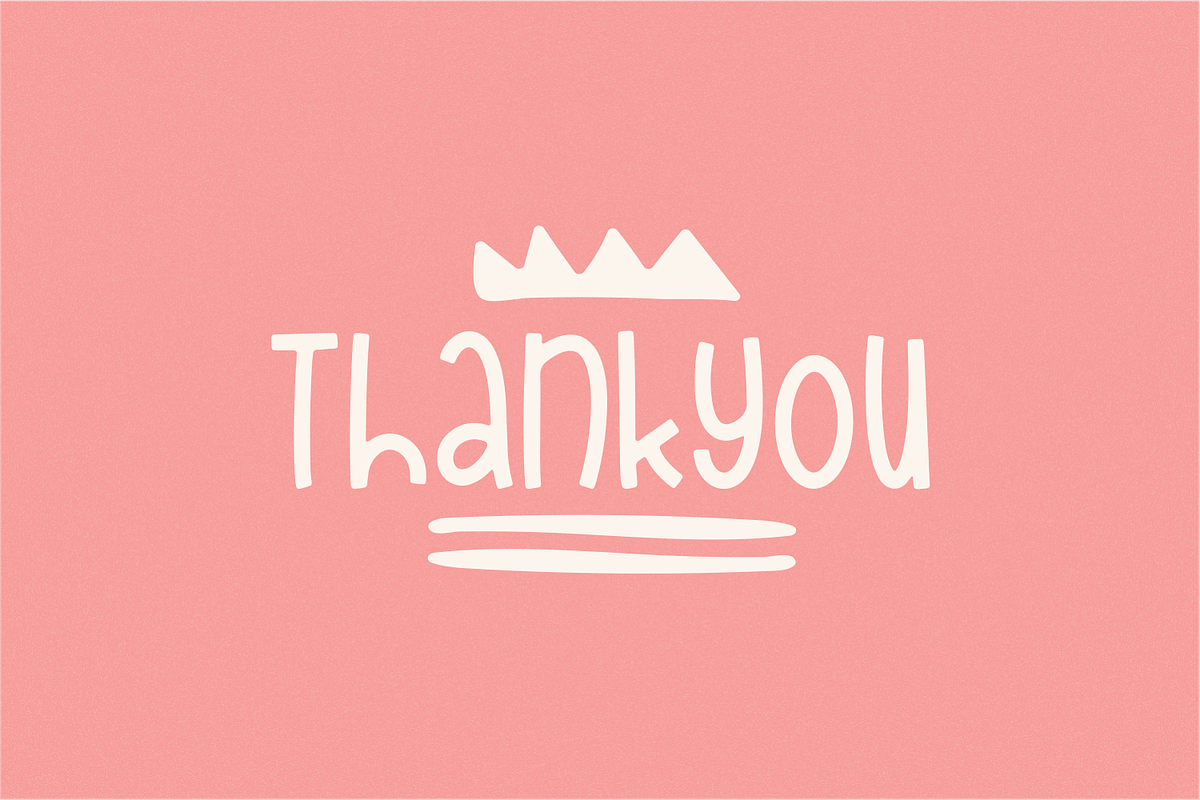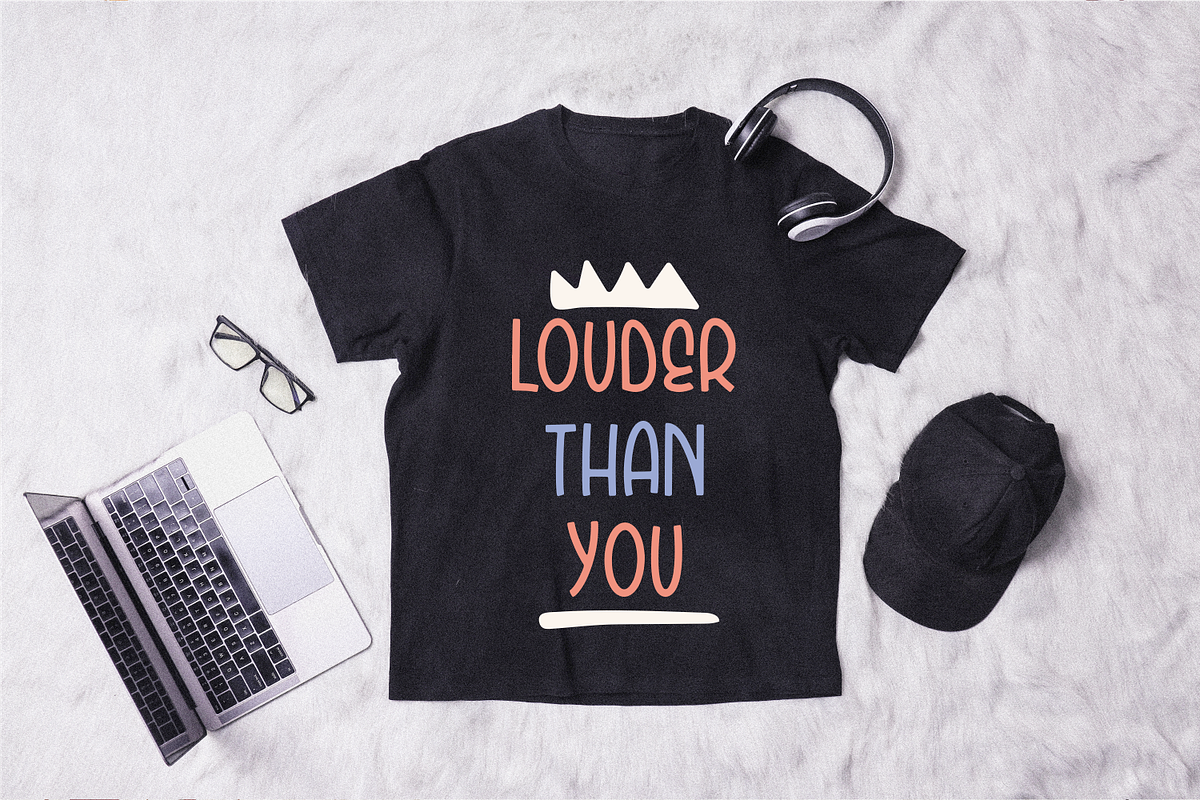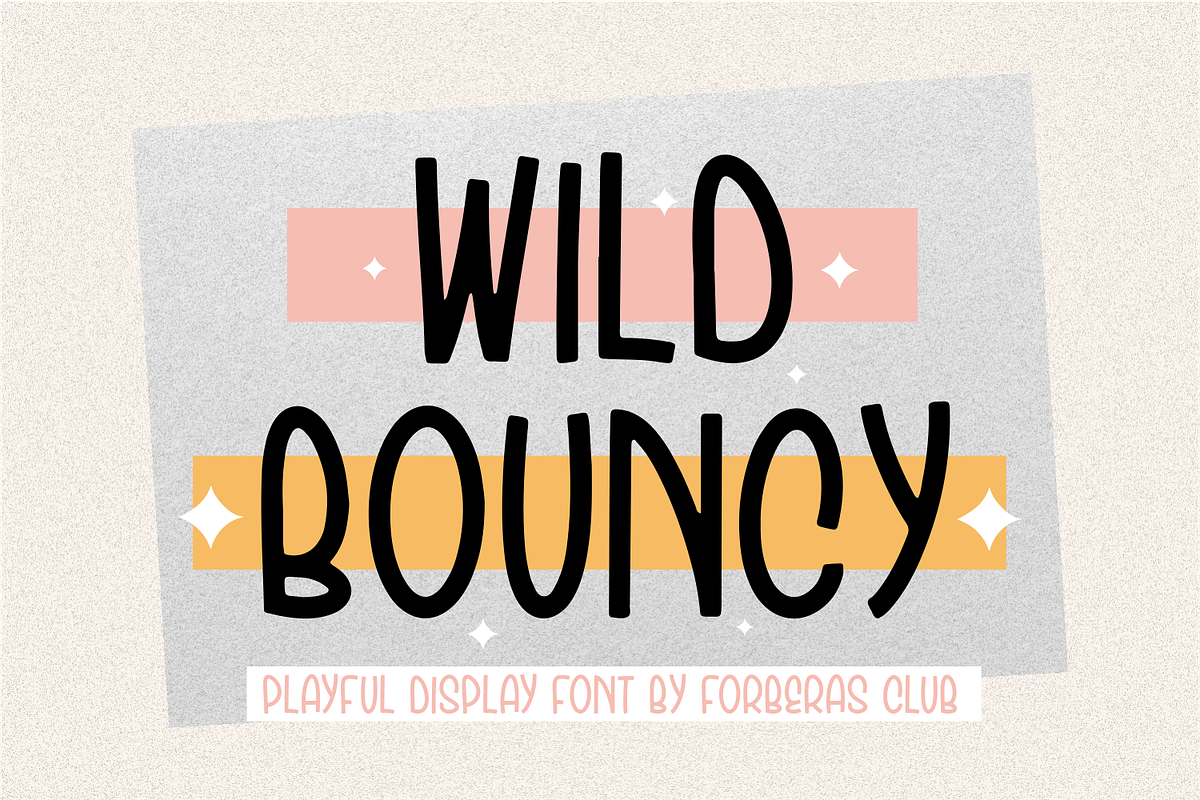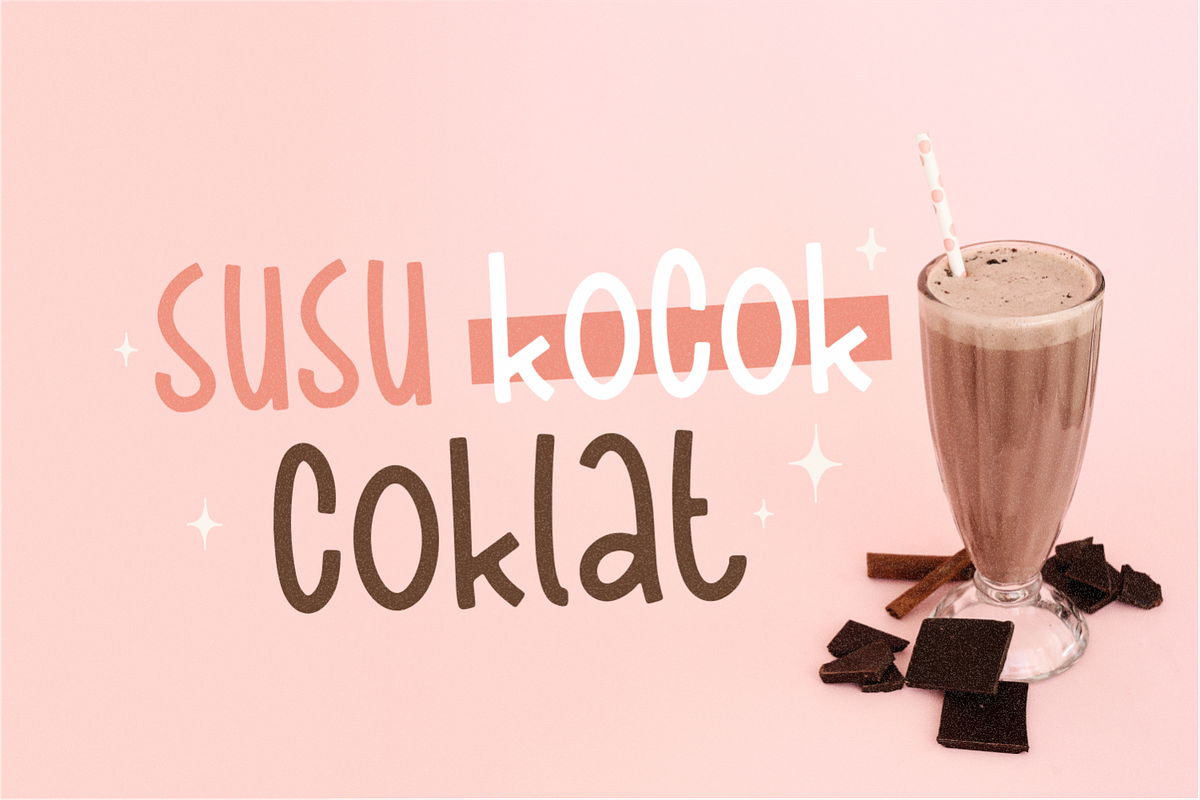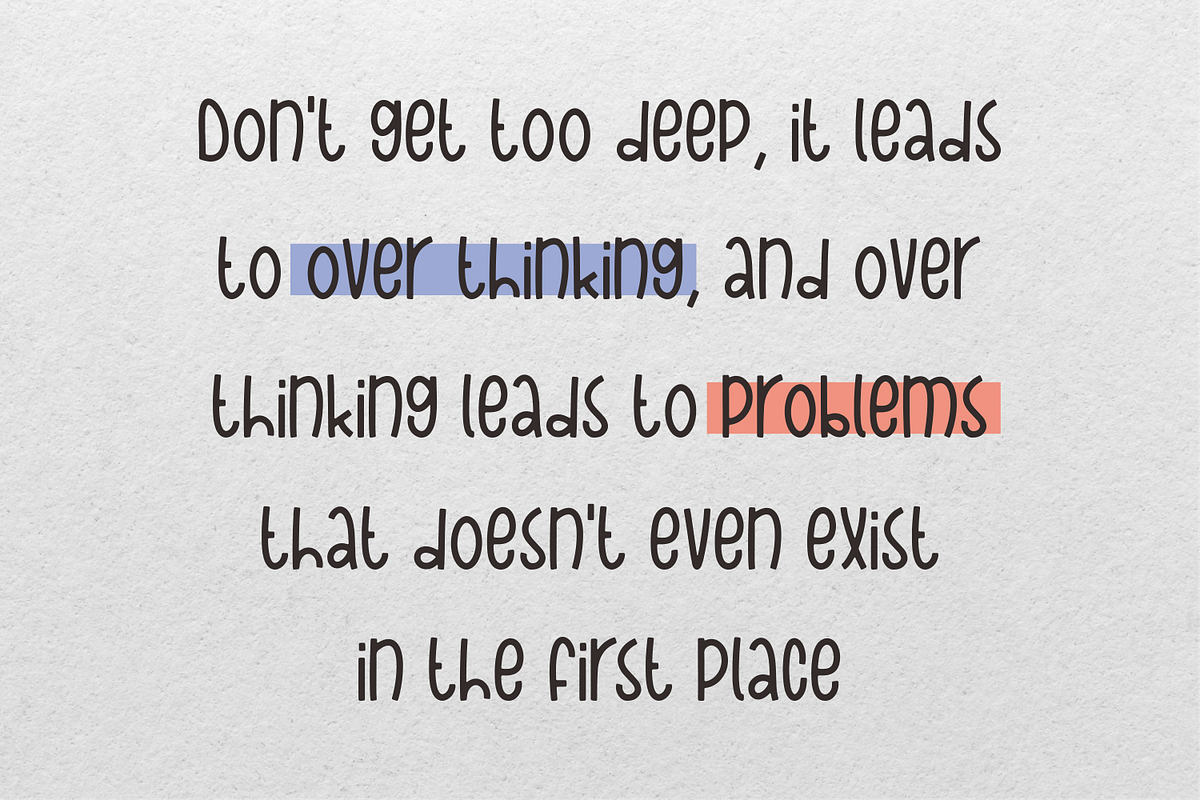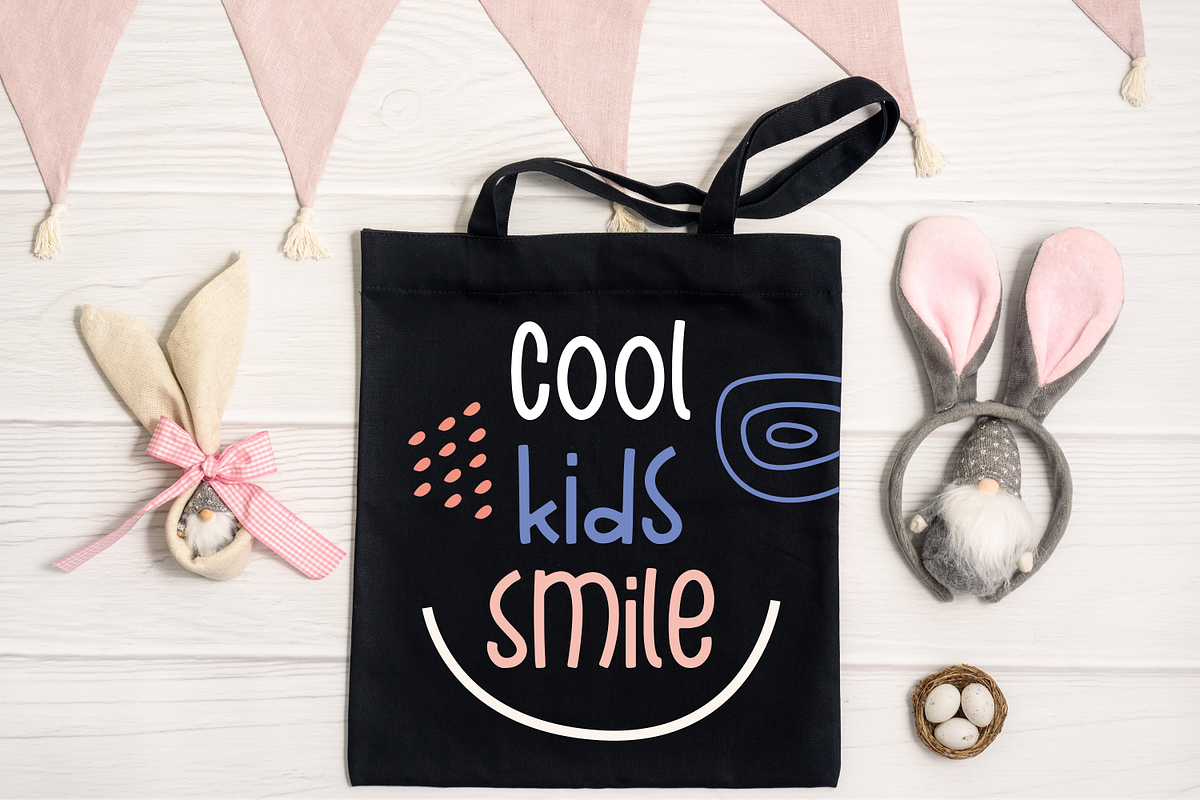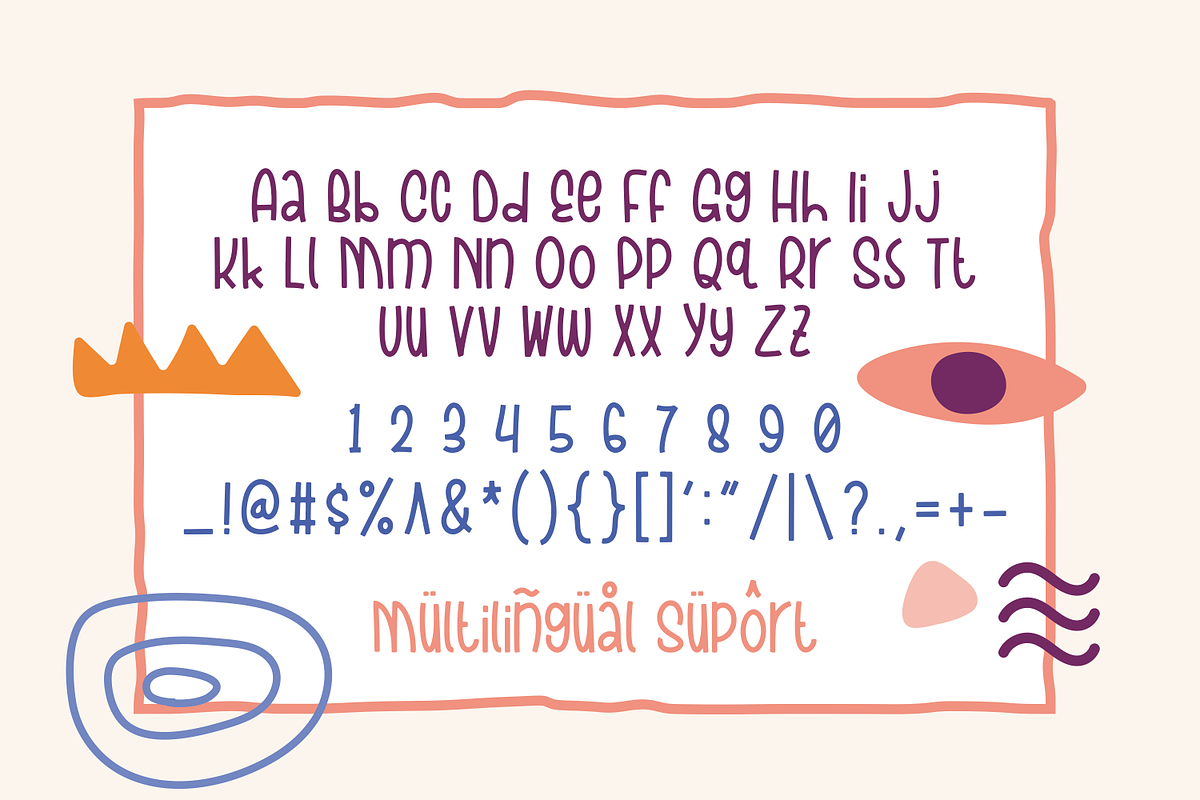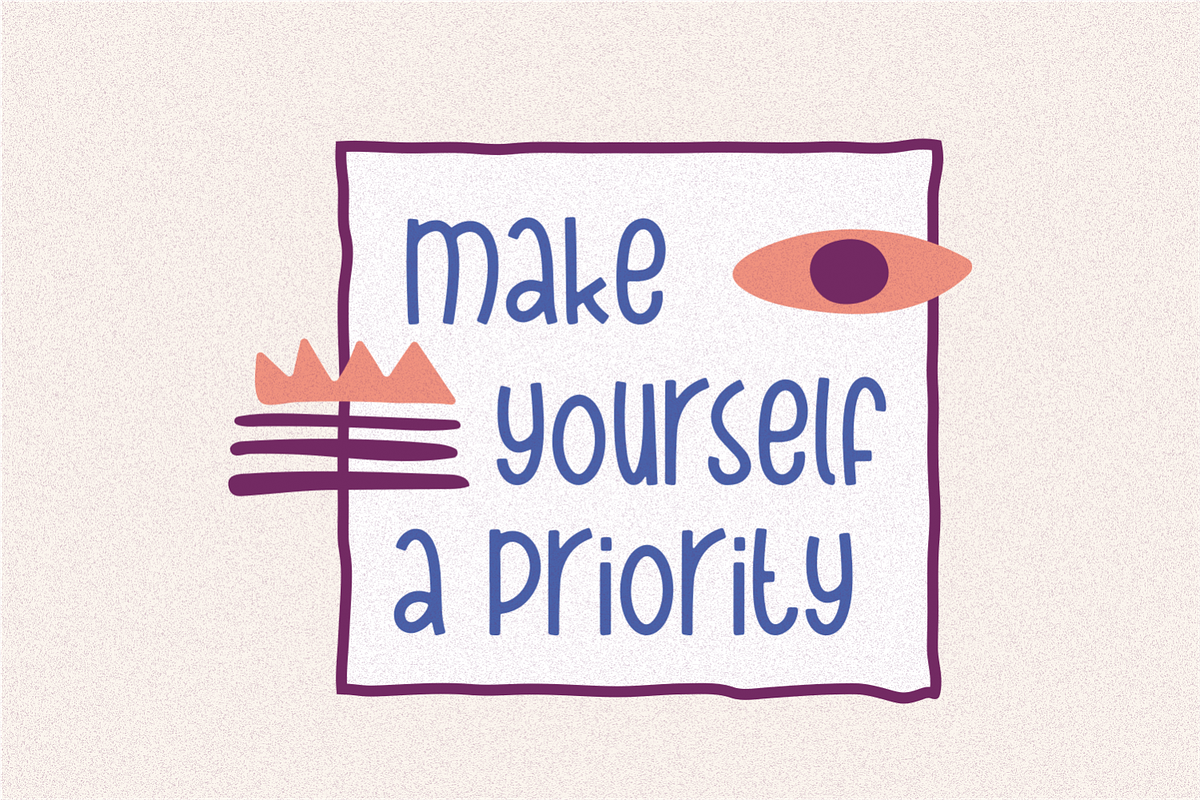
Wild Bouncy
Introducing Wild Bouncy by Forberas Club
Wild Bouncy is a Handwritten Script font that will make your designs look classic, Farmhouse, Boho, and Feminine. It is a great font for events, Wedding Project, fashion, apparel projects, signature, album covers, logos, branding, magazines, social media posts, advertisements, but it also works great for other projects. Add it to your fonts’ library, and it will enhance your creativity!
Wild Bouncy is best for:
- logos, branding, & Signatures.
- Flyers, Album cover, Magazine, & Advertisements.
- Website design , design blogs, & fashion.
- Quote graphics for social media. - and also it works great for other projects.